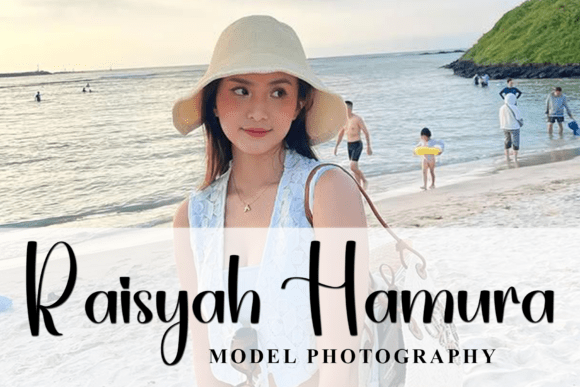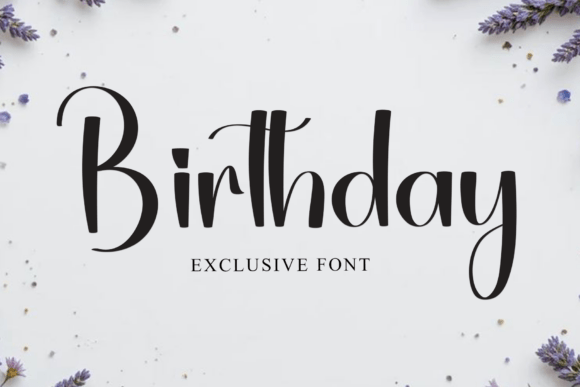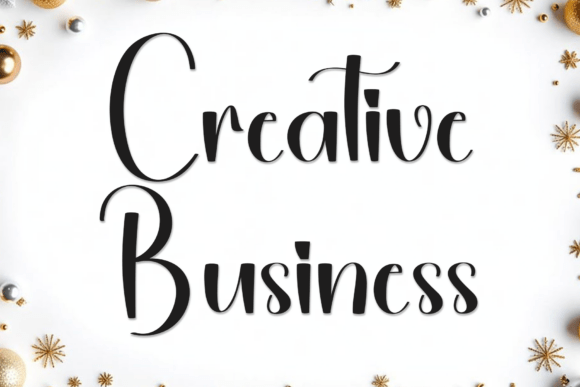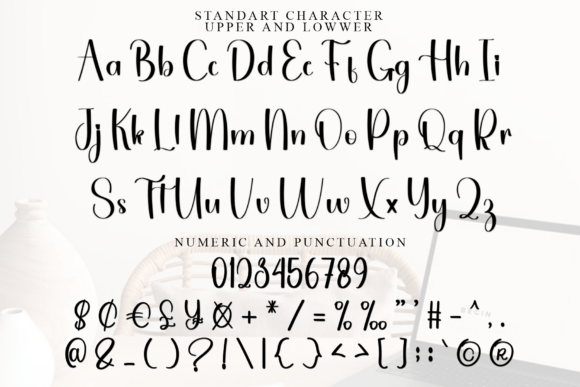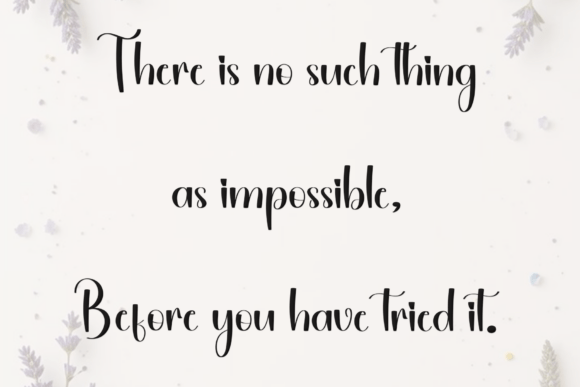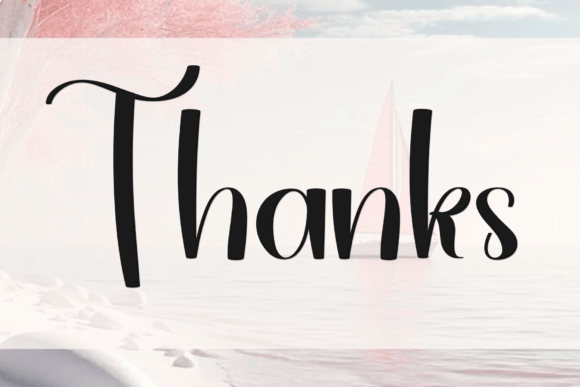
Daddy Snowman Font: A Unique and Versatile Font for Creative Projects
In the world of typography, fonts play a crucial role in making designs stand out. One such font that has gained popularity among designers and crafters is the Daddy Snowman Font. This beautiful and eye-catching font is designed with a soft, unique touch that sets it apart from other fonts. In this article, we’ll explore the features and benefits of the Daddy Snowman Font and why it’s a great addition to any design project.
Distinctive Strokes and Special Character
The Daddy Snowman Font is characterized by its distinctive strokes that give it a special character. The font’s unique design makes it meaningful and versatile for future use. The soft and rounded edges of the font make it perfect for designs that require a friendly and approachable tone. Whether you’re working on a children’s book, a craft project, or a website, the Daddy Snowman Font is sure to add a touch of personality to your design.
Variety of Characters and Compatibility
One of the standout features of the Daddy Snowman Font is its variety of characters. The font comes with a range of characters that can be used to create unique and creative designs. Additionally, the font is compatible with various applications, including Windows and open-source platforms. This makes it easy to use the font across different devices and software, making it a great choice for designers and crafters who work on multiple projects.
Perfect for Design Projects, Crafts, and Creative Works
The Daddy Snowman Font is perfect for a wide range of design projects, crafts, and creative works. Its natural font style makes it ideal for designs that require a personal touch. Whether you’re creating a logo, a poster, or a website, the Daddy Snowman Font is sure to enhance your design and make it appealing to a wide range of audiences. The font’s versatility makes it a great choice for designers and crafters who work on various projects, from children’s products to adult-oriented designs.
The Daddy Snowman Font offers several benefits for designers and crafters. Some of the benefits include:
- Unique and eye-catching design: The font’s unique design makes it stand out from other fonts, making it perfect for designs that require a special touch.
- Versatility: The font’s versatility makes it suitable for a wide range of design projects, crafts, and creative works.
- Easy to use: The font is easy to use, even for designers and crafters who are new to typography.
Examples of Use Cases
The Daddy Snowman Font can be used in a variety of design projects, including:
- Children’s products: The font’s friendly and approachable tone makes it perfect for children’s products, such as books, toys, and games.
- Logos and branding: The font’s unique design makes it a great choice for logos and branding projects that require a special touch.
- Posters and flyers: The font’s versatility makes it suitable for posters and flyers that require a bold and eye-catching design.
- Websites and blogs: The font’s natural font style makes it perfect for websites and blogs that require a personal touch.
In conclusion, the Daddy Snowman Font is a unique and versatile font that is perfect for designers and crafters who want to add a special touch to their designs. Its distinctive strokes, variety of characters, and compatibility with various applications make it a great choice for a wide range of design projects, crafts, and creative works. Whether you’re working on a children’s product, a logo, or a website, the Daddy Snowman Font is sure to enhance your design and make it appealing to a wide range of audiences.